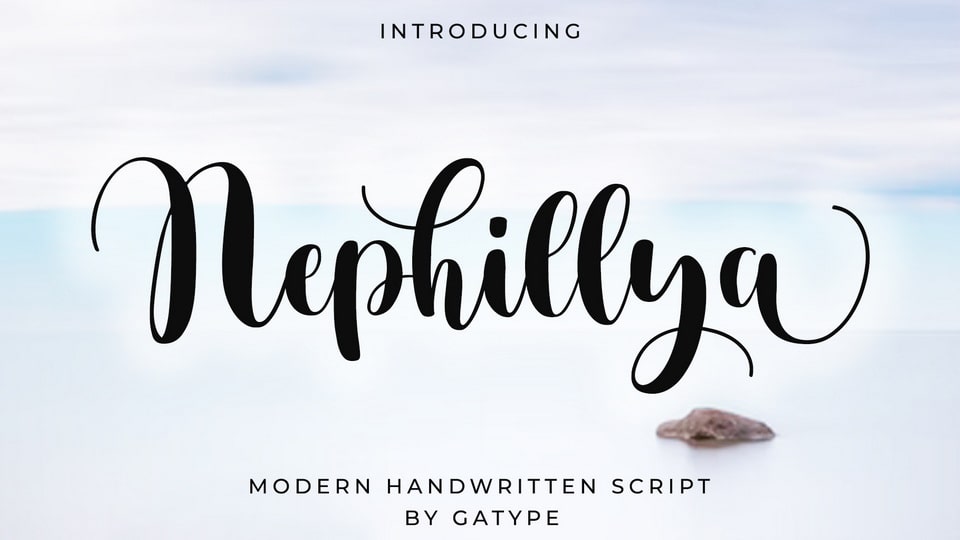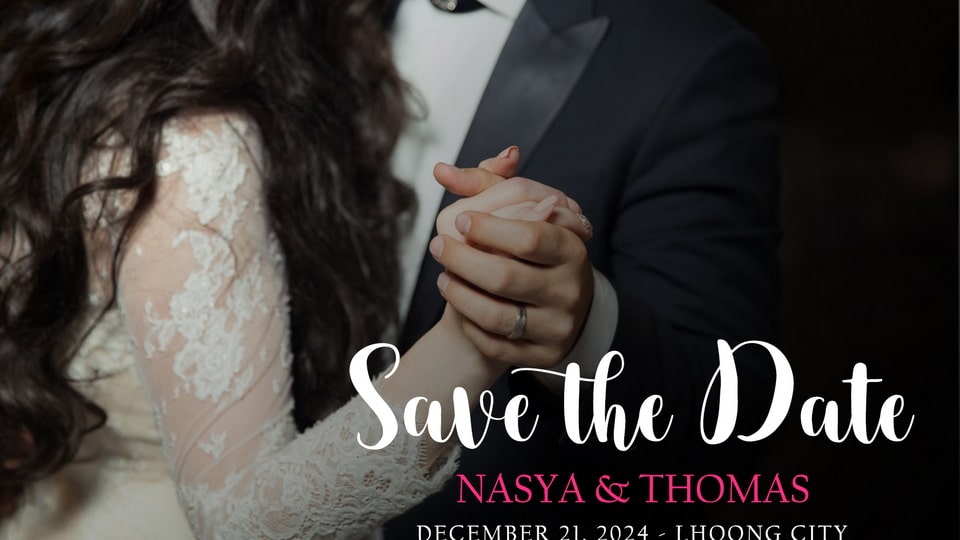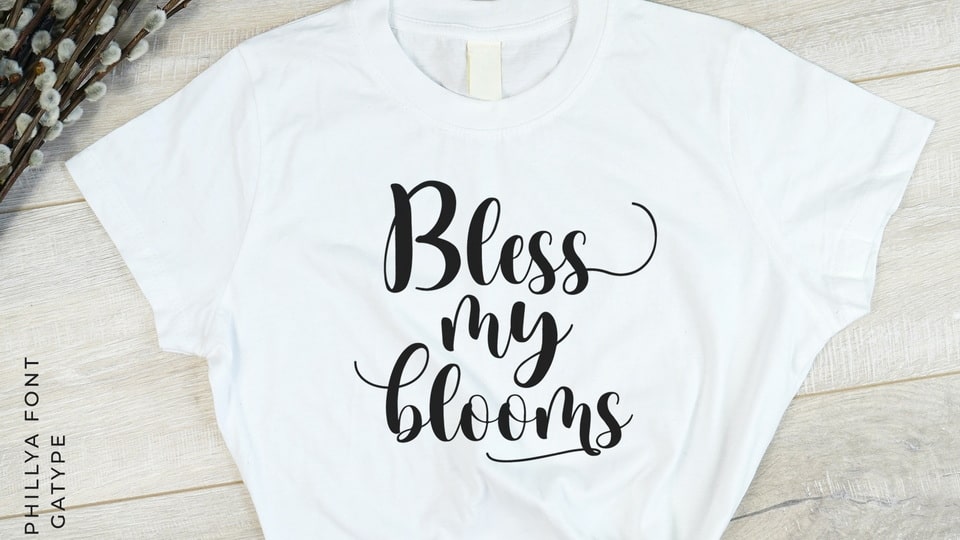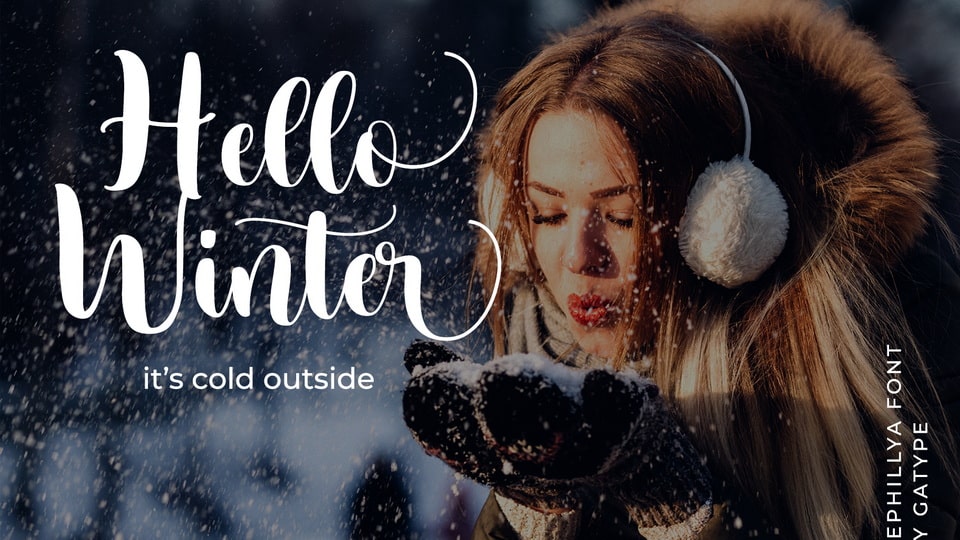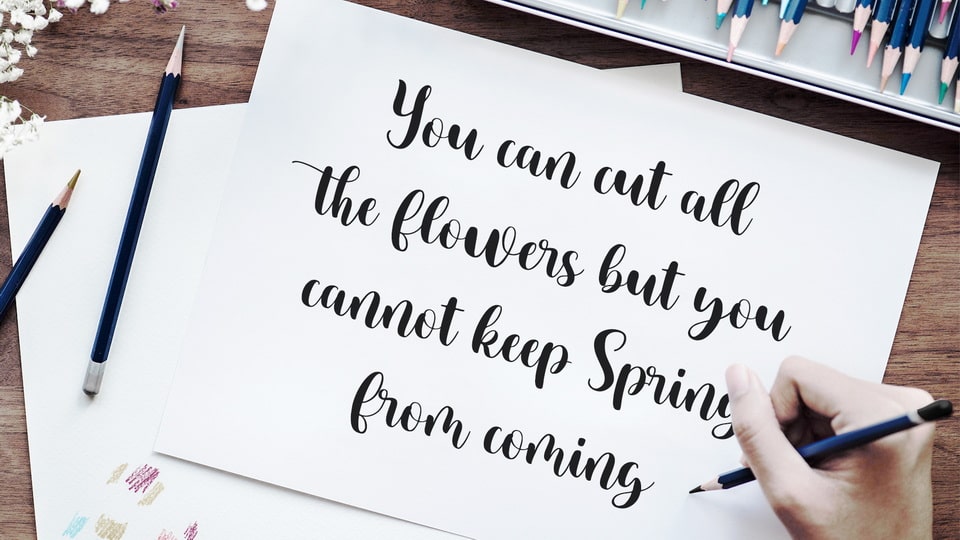
Nephillya is a beautiful modern calligraphy script font that looks elegant, natural, stylish. The delicate strokes and thoughtful design make each letter feel smooth and inviting, ensuring that your projects stand out with a unique handwritten charm.
Nephillya is ideal for a wide range of creative projects, including Cricut crafts, embroidery, and DIY crafts. Its smooth and flowing script makes it the perfect choice for wedding invitations, Easter cards, Thanksgiving decorations, and so much more.